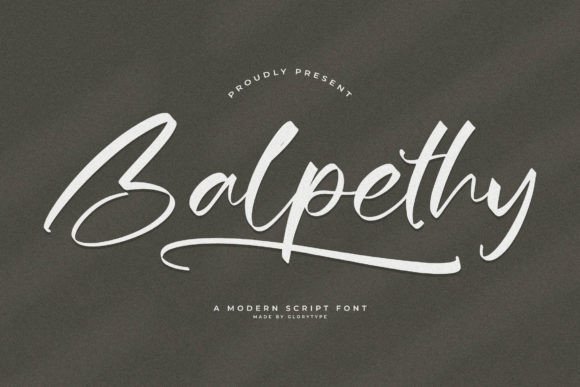
Balpethy Script Font: The Epitome of Elegance and Style for Your Creative Endeavors
Introducing the captivating Balpethy Script Font, a modern script typeface that will infuse your designs with timeless elegance. Experience the beauty of a font crafted by the renowned Glorytype Studio, a name synonymous with excellence in typography. With its graceful curves and impeccable design, Balpethy is the perfect choice for designers, artists, and creatives seeking to make a lasting impression.
Unleash your creativity and embark on a journey of artistic expression with Balpethy Script Font. Its versatility knows no bounds, allowing you to effortlessly elevate your logos, branding projects, homeware designs, product packaging, and more. Create stunning posters, shopping bags, t-shirts, book covers, and invitation cards that evoke an aura of sophistication and charm. Let Balpethy add a touch of elegance to your photography projects, creating watermarks that exude personality.
With its wide range of applications, Balpethy Script Font will transform your creative visions into reality. Its seamless integration with various projects ensures your designs stand out, leaving a lasting impact on your audience. The possibilities are endless, and only your imagination can limit the magic you can create.
Immerse yourself in the world of Balpethy Script Font and discover a new realm of creative possibilities. Say goodbye to ordinary typography and embrace the extraordinary. Let Balpethy be your guiding light, leading you to design excellence.